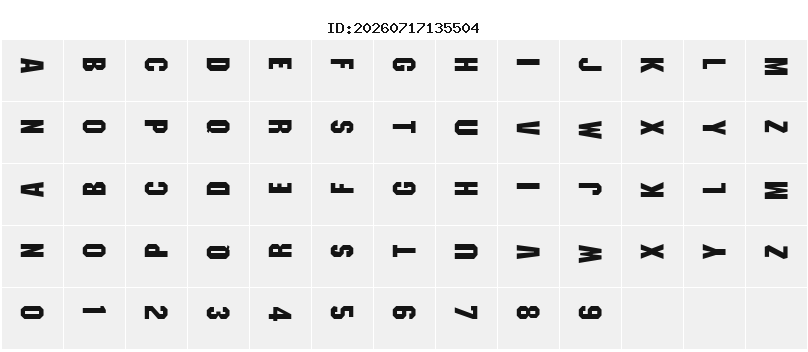
• Font Name: Blocky Sideways
• Full Font Name: Blocky Sideways
About Blocky Sideways.ttf
Blocky Sideways.ttf is a modern, elegant sans-serif font designed for ultimate readability and visual harmony. Perfect for branding, headlines, web design, and print materials.